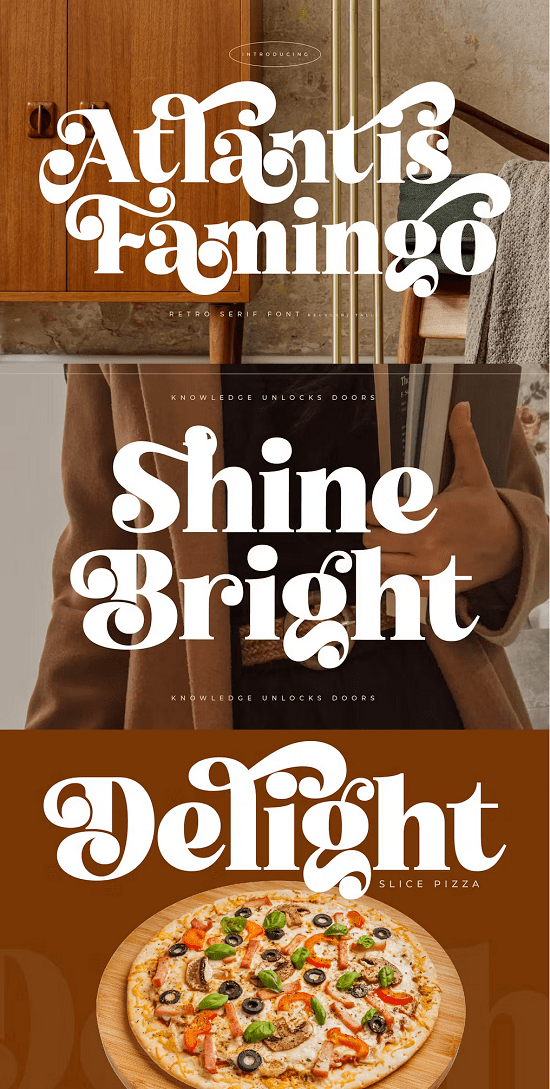
EE - Atlantis Famingo Retro Serif Font 6GKURVK
Hi ladies & gentlemen, this is one of our fonts suitable to complement your digital and printed creative products. This font is perfect for posters, social media posts, branding, personal projects, etc.